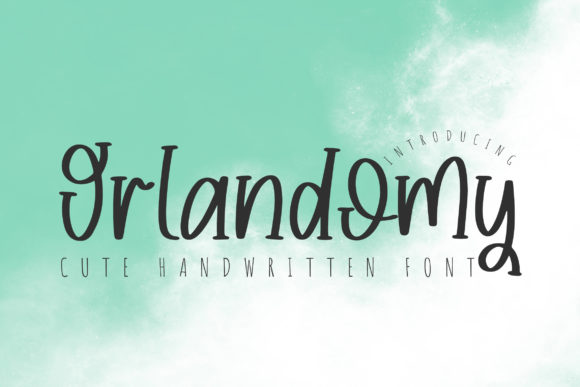
Orlandomy Font
Journey into a world of enchantment with Orlandomy, a whimsical script font that captivates the hearts of all who behold it. Its charming and playful style weaves a tapestry of loveliness, adding a touch of magic to every creation it graces.
Visualize the sheer delight of your audience as they are greeted with the endearing curves and twirls of Orlandomy. This delightful typeface exudes warmth and personality like a gentle embrace, inviting readers to embark on an adventure through its whimsical strokes.
With Orlandomy as your creative companion, you possess the power to transform ordinary designs into captivating masterpieces. Picture the allure of your baby book, splashed with the vibrant hues of Orlandomy. Each page will unfold like a tale told under a starry sky, capturing precious moments with a charm that echoes through time.
Step into the enchanting realm of Orlandomy, and let its magic ignite your imagination. Its versatility transcends the boundaries of baby books, extending to an array of creations where beauty and whimsy intertwine. Picture your business cards adorned with the elegance of Orlandomy, or your product packaging adorned with its playful spirit. Each touchpoint becomes an unforgettable encounter, leaving a lasting impression on the hearts of your customers.
This font is the brainchild of dapiyupi, a renowned artist with a keen eye for detail and a passion for creating fonts that spark joy. With Orlandomy, dapiyupi invites you to embrace the magic of creativity, to embark on a journey where imagination reigns supreme.